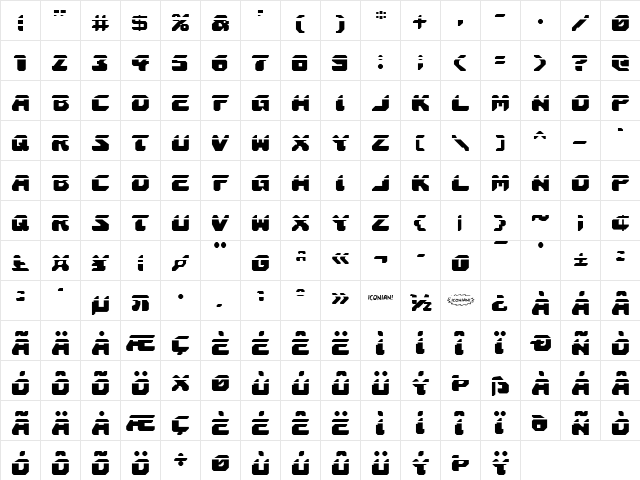
Astropolis Laser Regular
Design Context for Astropolis Laser Typeface
Astropolis Laser is a composed and adaptable typeface that performs quietly and consistently across a wide range of design contexts.